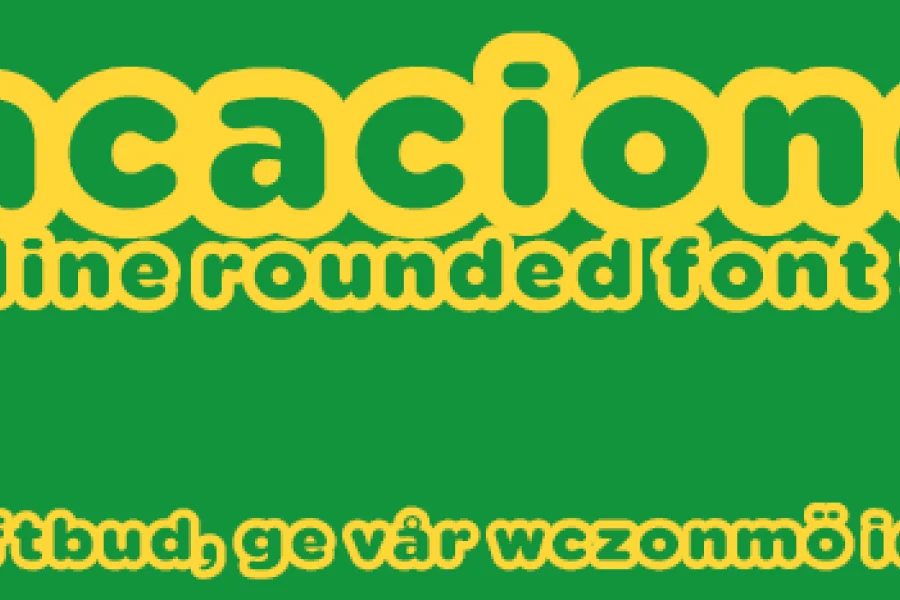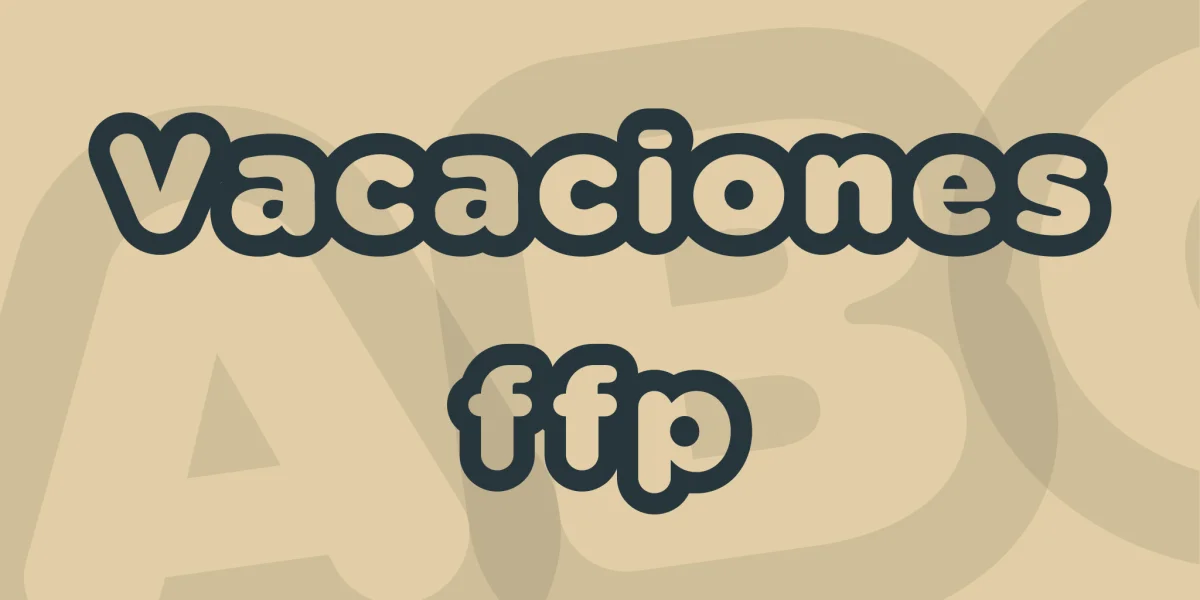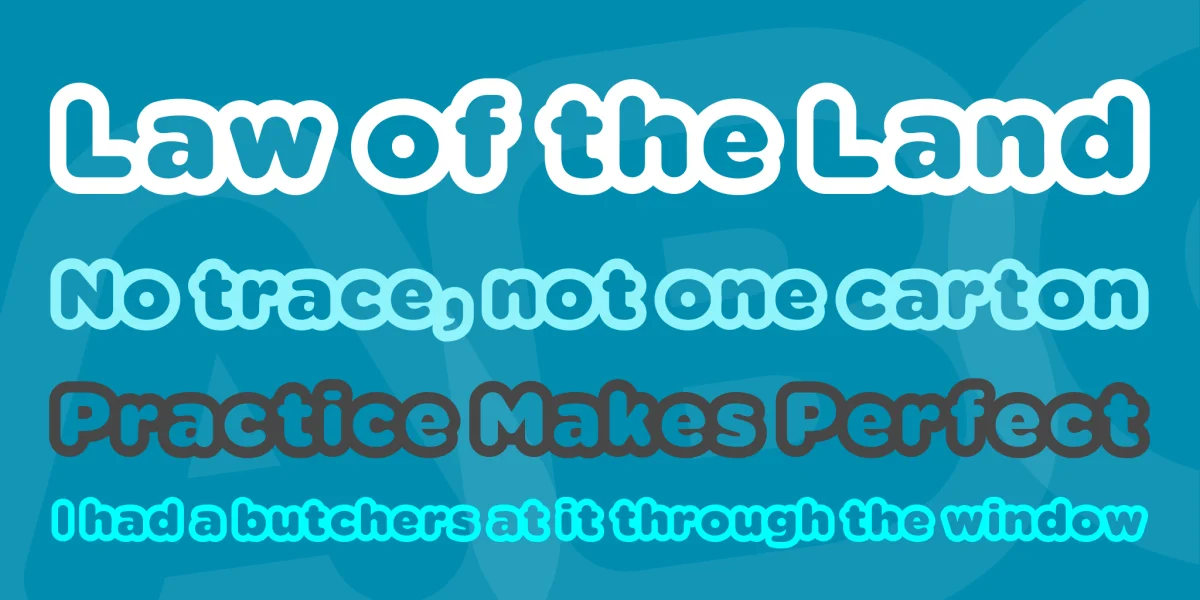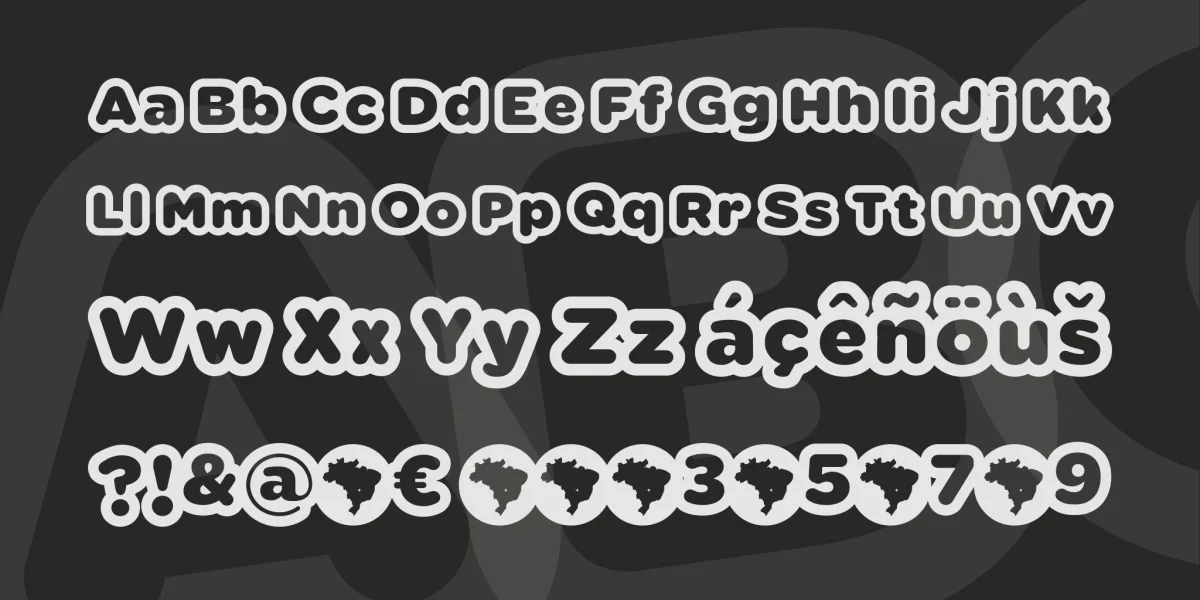
I welcome 2015 after year-end holidays in Brazil with this variant outline of my previous Typography Vermin. A few days typographic game awakening of holiday happiness and enter this New Year wishes and desires so many profound changes inspires me.
This source is excellent readability with thick edge which joins that of the previous letter, forming a organic shell around formal letters that are inside negative or positive depending on the color of the beholderIdeal for graphic design, Flyers, posters, signs or editorial design.
The Holiday typography features a character set 405 characters (Latin Extended) with support for any European language or European center.
Latin-Extended Character Set & Supported Languages: Croatian, Czech, Danish, Dutch, Inglés, Esperanto, Estonian, Finnish, French, German, Hungarian, Irish, Italian, Latvian, Lithuanian, Norwegian, Polish, Portuguese, Romanian, Serbian, Slovak, Slovenian, Spanish, Swedish, Turkish.